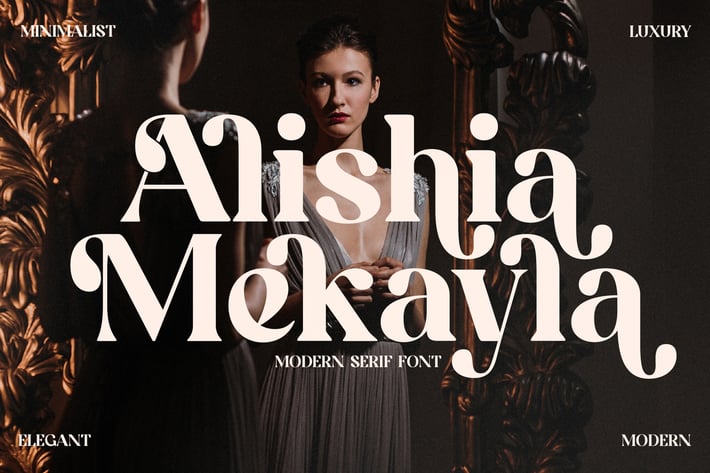
Alishia Mekayla Modern Serif Font
Alishia Mekayla is a modern serif font that blends elegance with bold sophistication. Its stylish curves and luxurious look make it the perfect typeface to elevate both digital and print designs. Ideal for creatives looking to add a touch of class and modernity to their work.
+ Modern serif style with elegant details
+ Minimalist and luxury-inspired design
+ Clean letterforms with strong readability
+ Perfect balance of modern and classic aesthetics
+ Works seamlessly for both digital and print use
+ Branding & logos
+ Editorial designs
+ Fashion & lifestyle projects
+ Invitations & stationery
+ Social media graphics
+ Posters & promotions
Bring a modern luxury vibe to your designs with Alishia Mekayla — where elegance meets bold creativity.